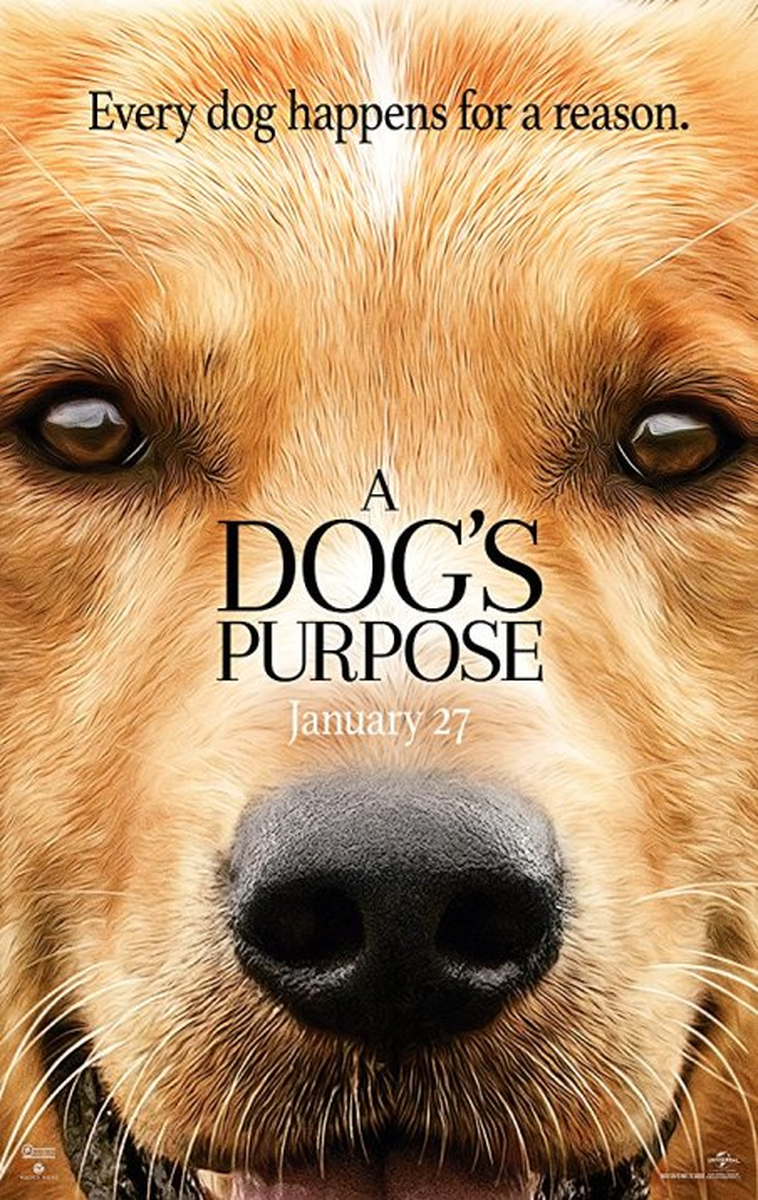
A Dog's Purpose font preview
About A Dog's Purpose
A Dog's Purpose is the 2017 family drama directed by Lasse Hallström, based on W. Bruce Cameron's bestselling novel, in which a devoted dog is reincarnated across several lives and owners while searching for meaning. Released by Universal Pictures and Amblin, the film's gentle, heartfelt tone is reflected in a warm old-style serif title treatment, the kind of literary, book-jacket lettering that signals sincerity.
The film and its source novel struck a chord with animal lovers and spawned a sequel, A Dog's Journey, all sharing a soft, reflective register. The serif title treatment, with its bracketed serifs, generous x-height, and moderate stroke contrast, reads like the typeface you would find on a well-made hardcover, reinforcing the story's storybook warmth. That readable, humanist old-style serif look is what this font recreates.
What font does A Dog's Purpose use?
A Dog's Purpose uses Athelas Regular, designed by Veronika Burian and José Scaglione at TypeTogether (2008), the warm text serif used in the A Dog's Purpose title treatment (it also ships on macOS and in Apple Books). A commercial release from TypeTogether.
Where this style works
Warm old-style text serifs like Athelas are the natural pick for book covers and interiors, literary and lifestyle editorial, family-film and documentary branding, museum text, and long-form reading where comfort matters. The generous x-height and bracketed serifs keep it readable at small sizes, while the moderate contrast gives titles a quiet, literary authority.
What fonts are similar to Athelas?
Comparable old-style text serifs include Arapey, Adobe Caslon, Sabon Next, Cala, and Brioso Pro. Free near-substitutes via Google Fonts include Arapey, EB Garamond, and Crimson Pro.